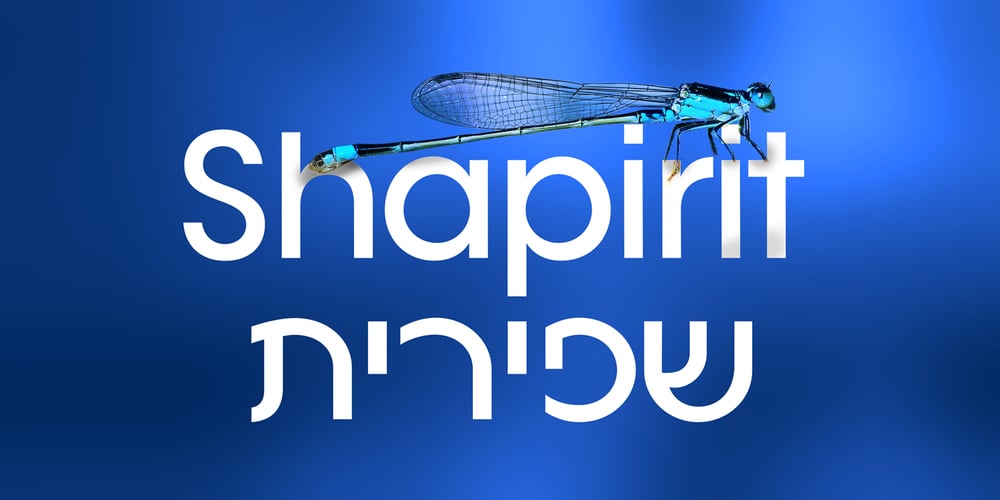
SHAPIRIT Font Family was designed by Martin Kadlečik and published by ME Typography. SHAPIRIT contains 8 styles and family package options. The Shapirit family belongs to a category of geometric sans sherif fonts, that was created in 1920s. The main feature of this category is geometric architecture of shapes. Shapirit family is perfect for headlines, brief texts used on any screen, print materials as well as logos. The whole family includes 8 fonts from Thin to Black and contains full Hebrew and Latin script. Therefore, Shapirit is an ideal solution for any adaptation into Hebrew or any Latin script language. The word “Shapirt” (in Hebrew שפירית) means dragonfly. The font’s name was inspired by the dragonfly’s slim and elegant body.